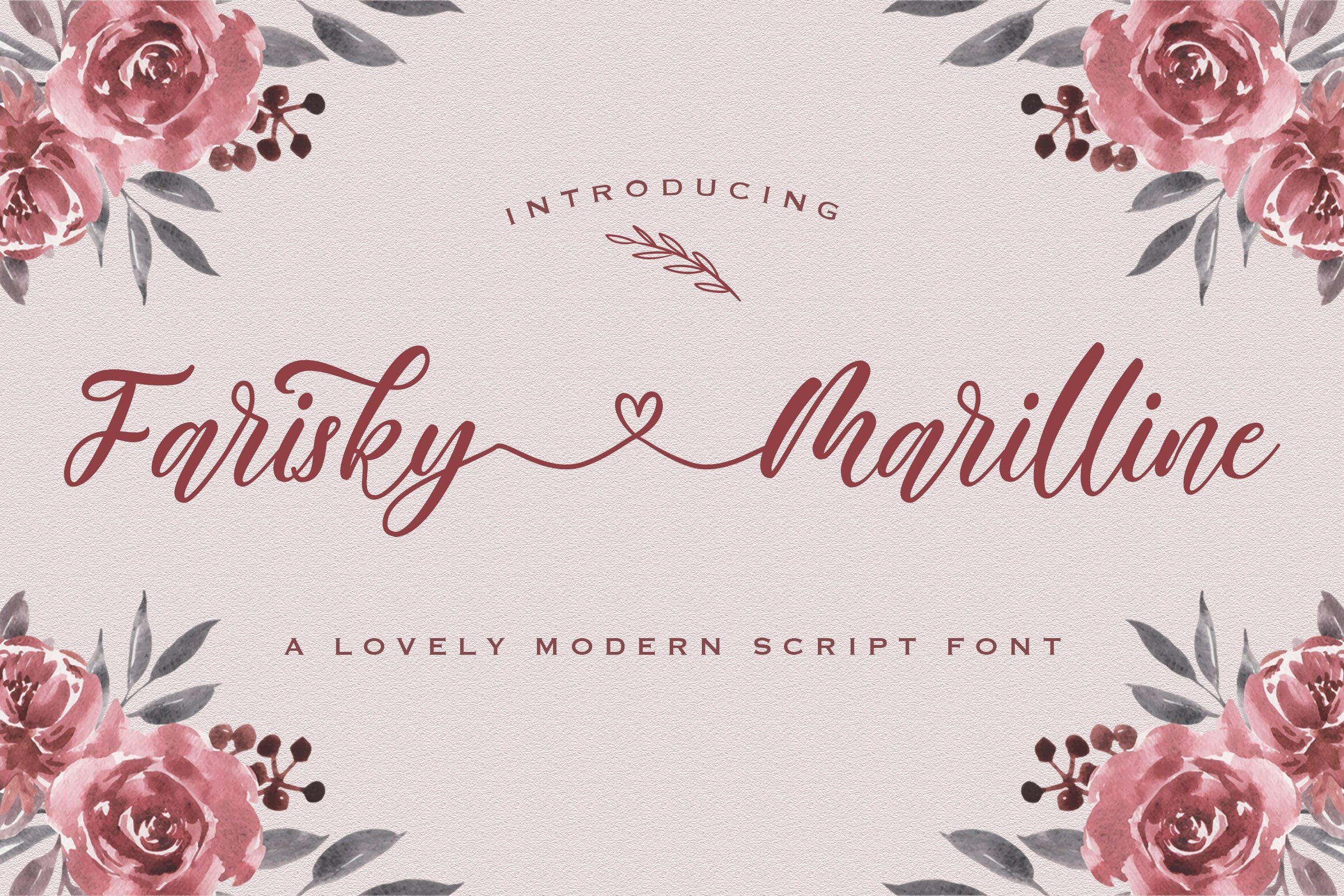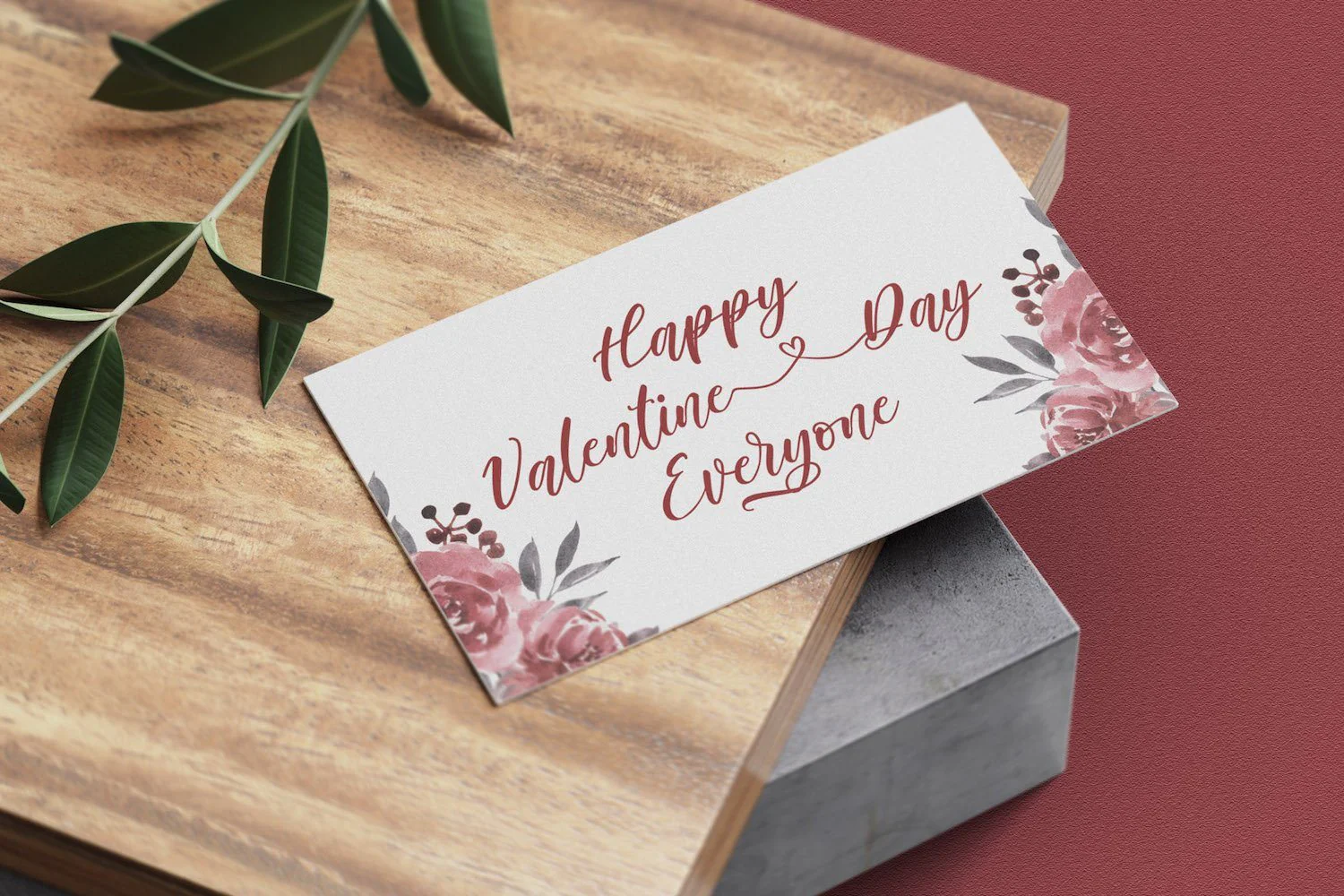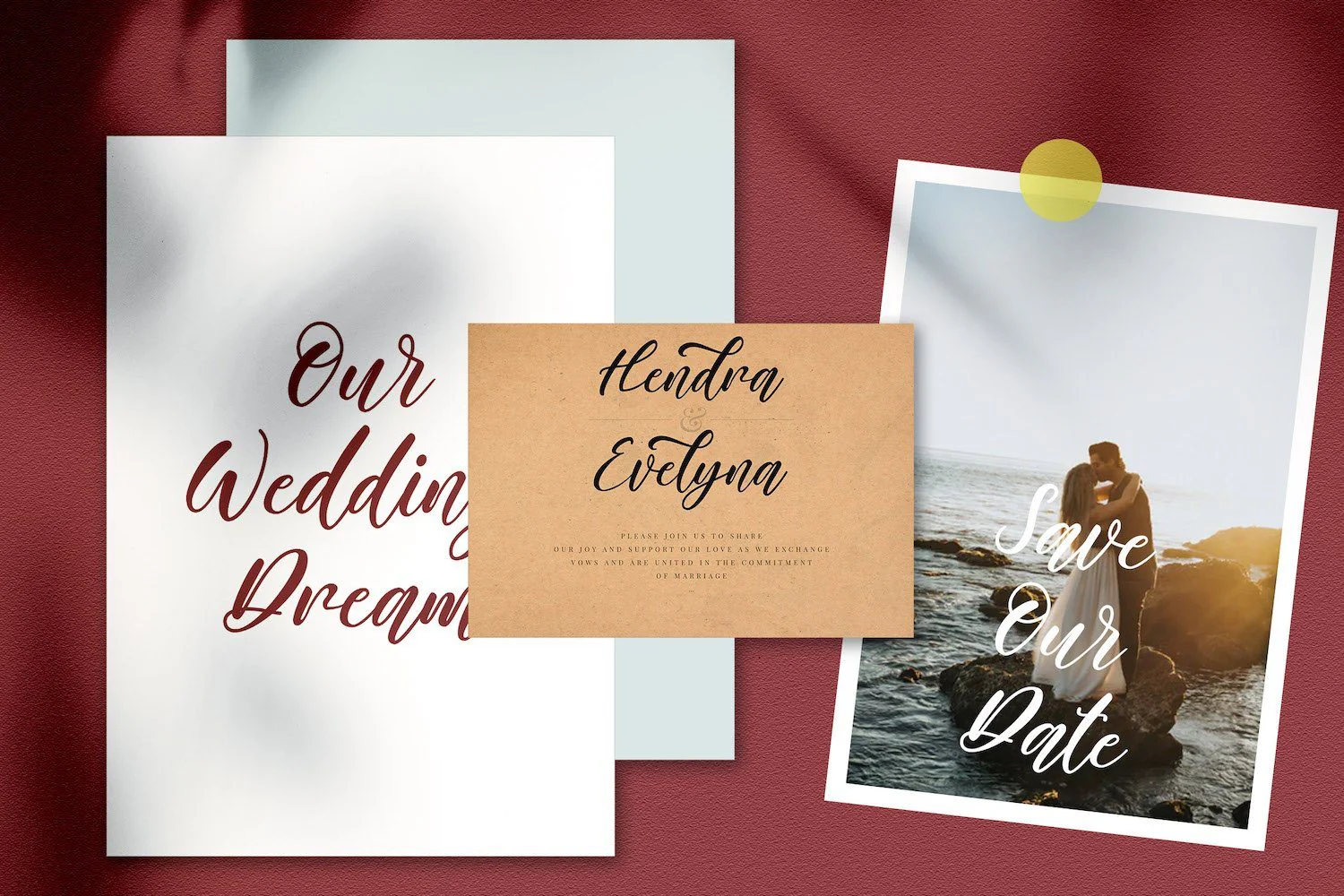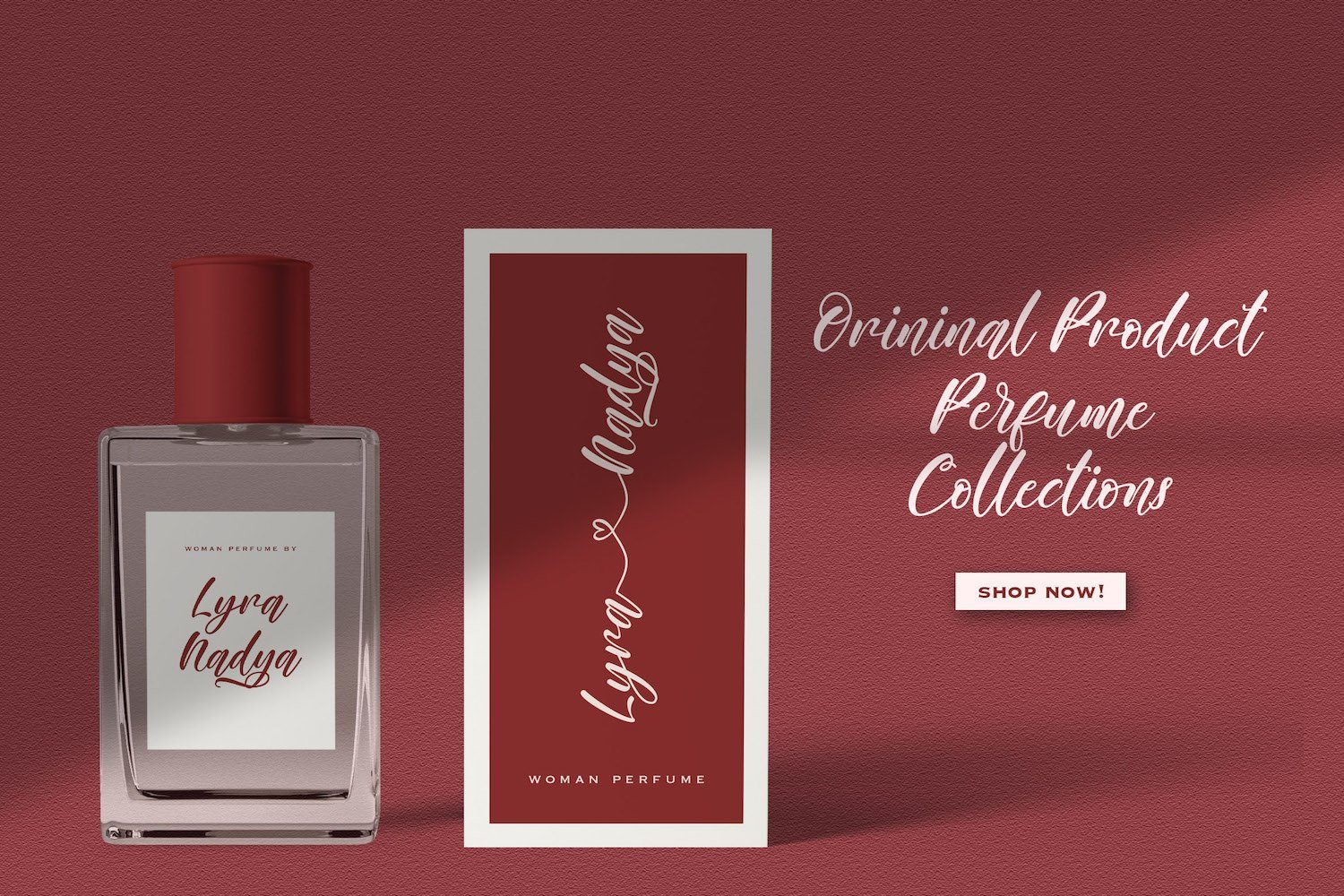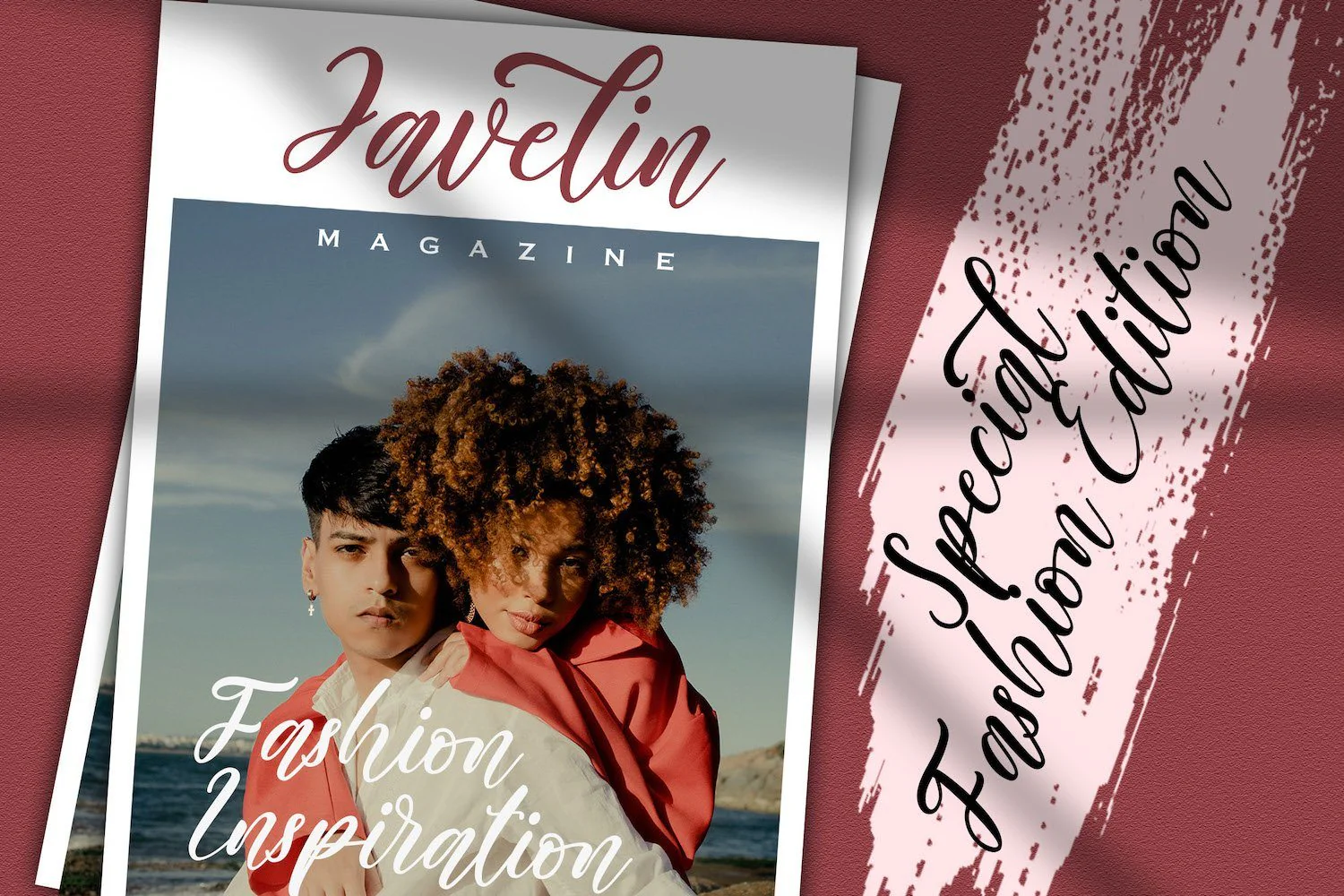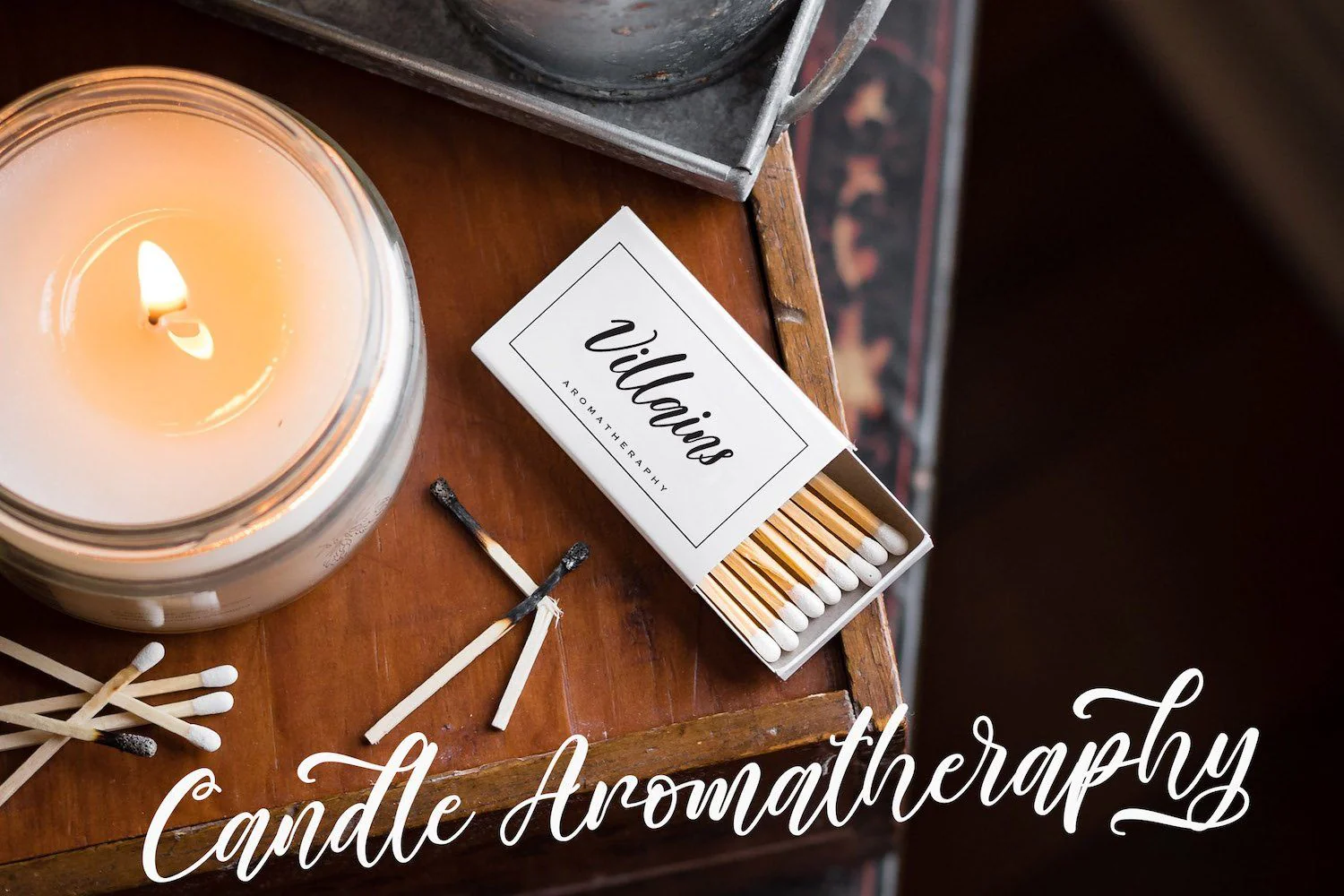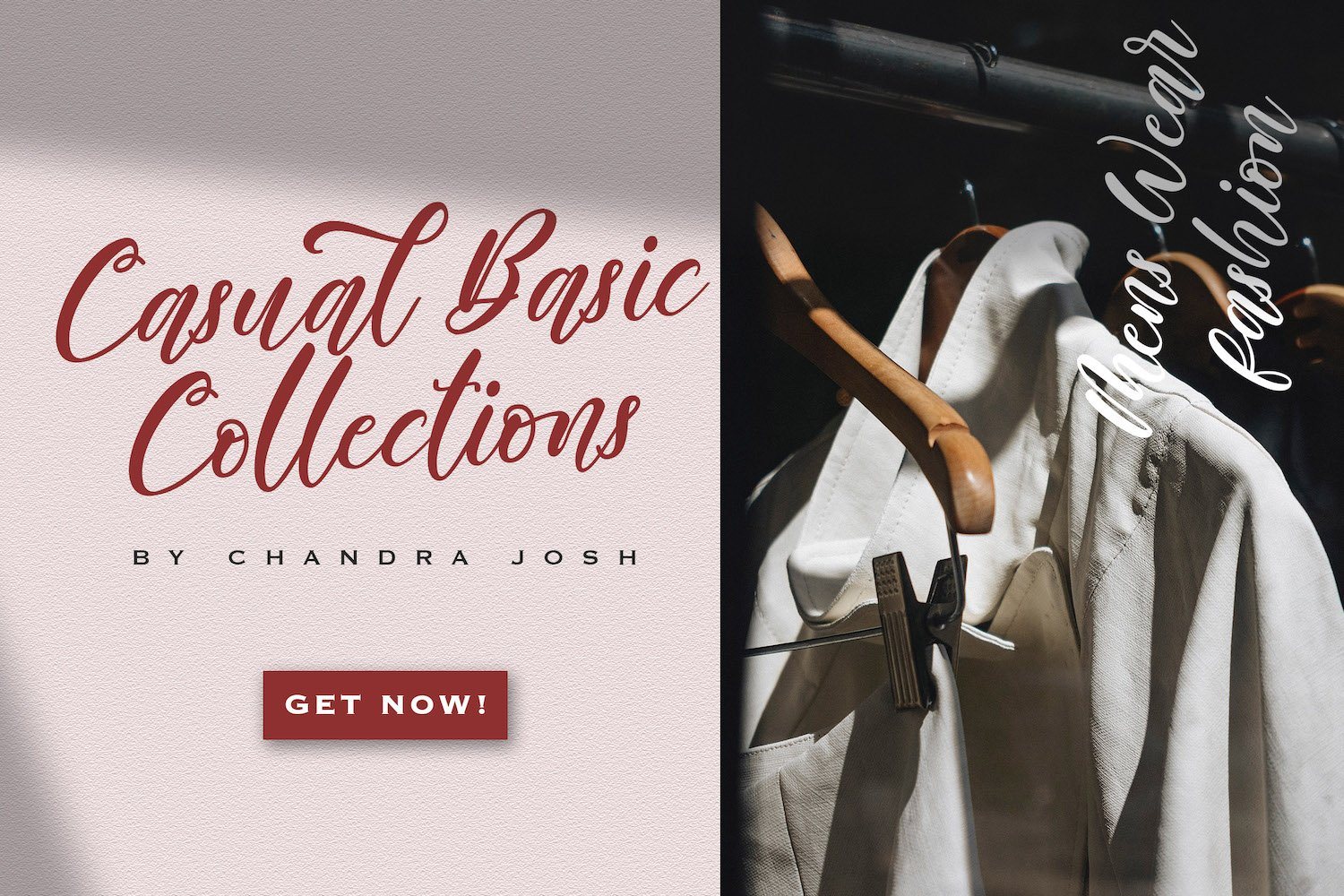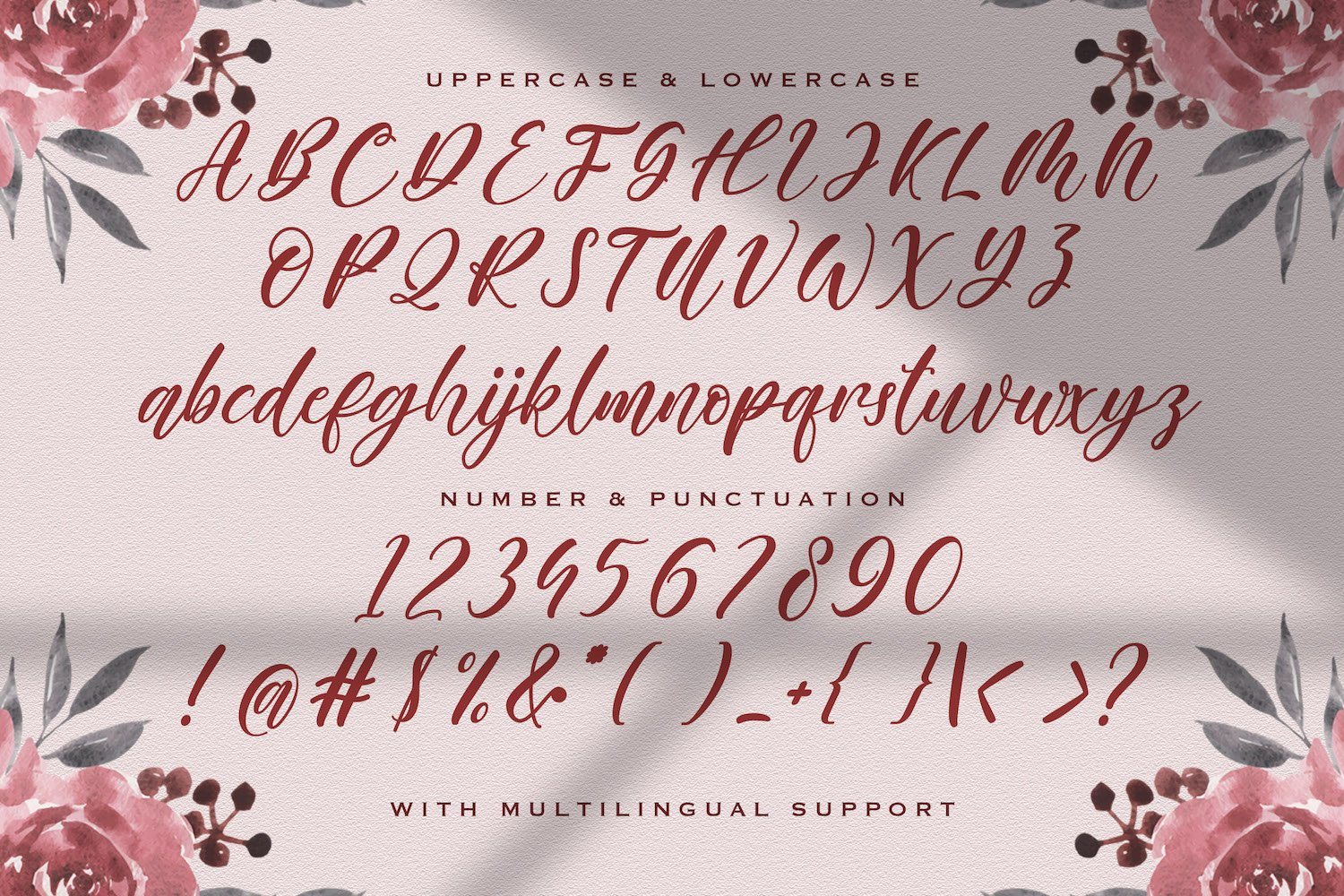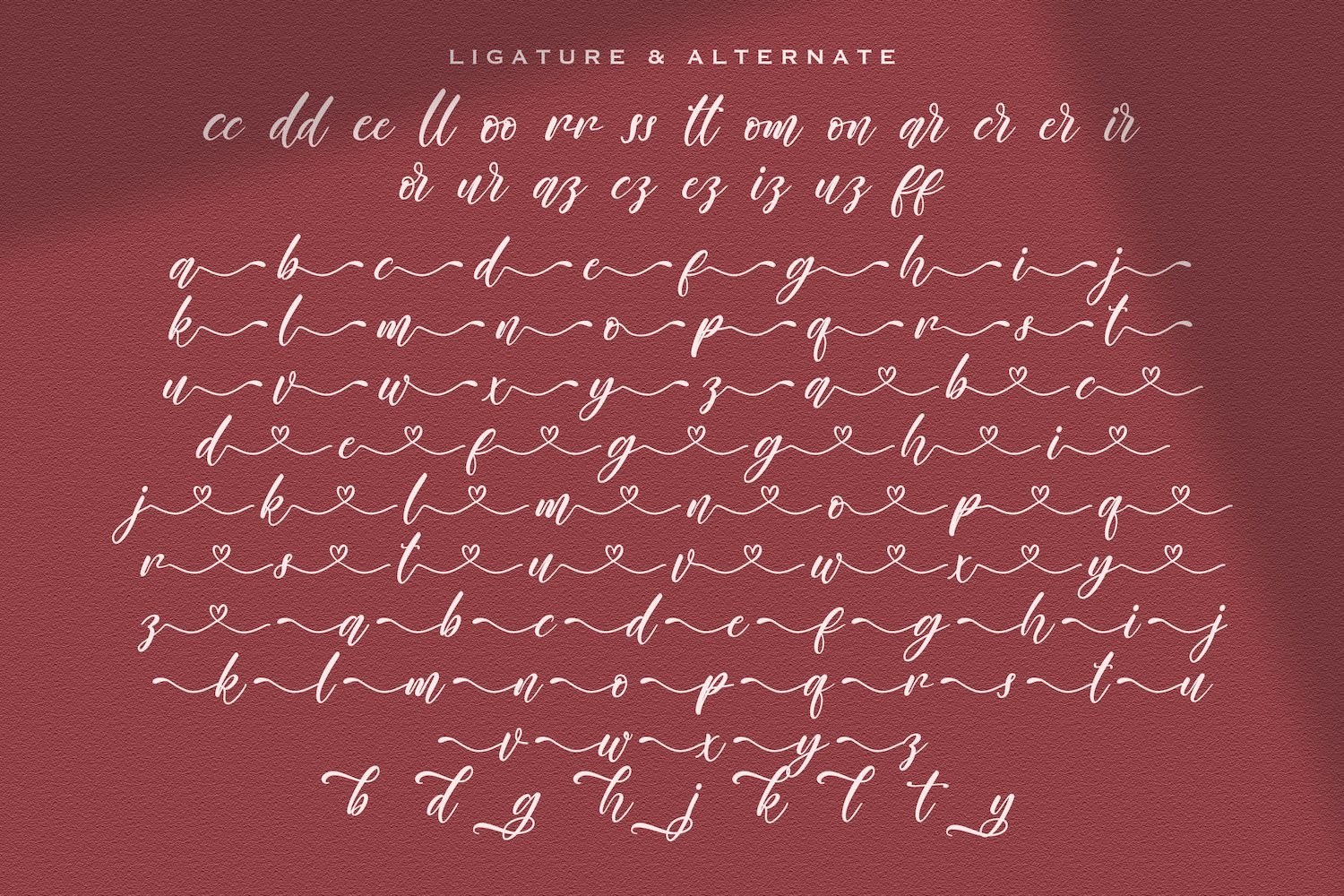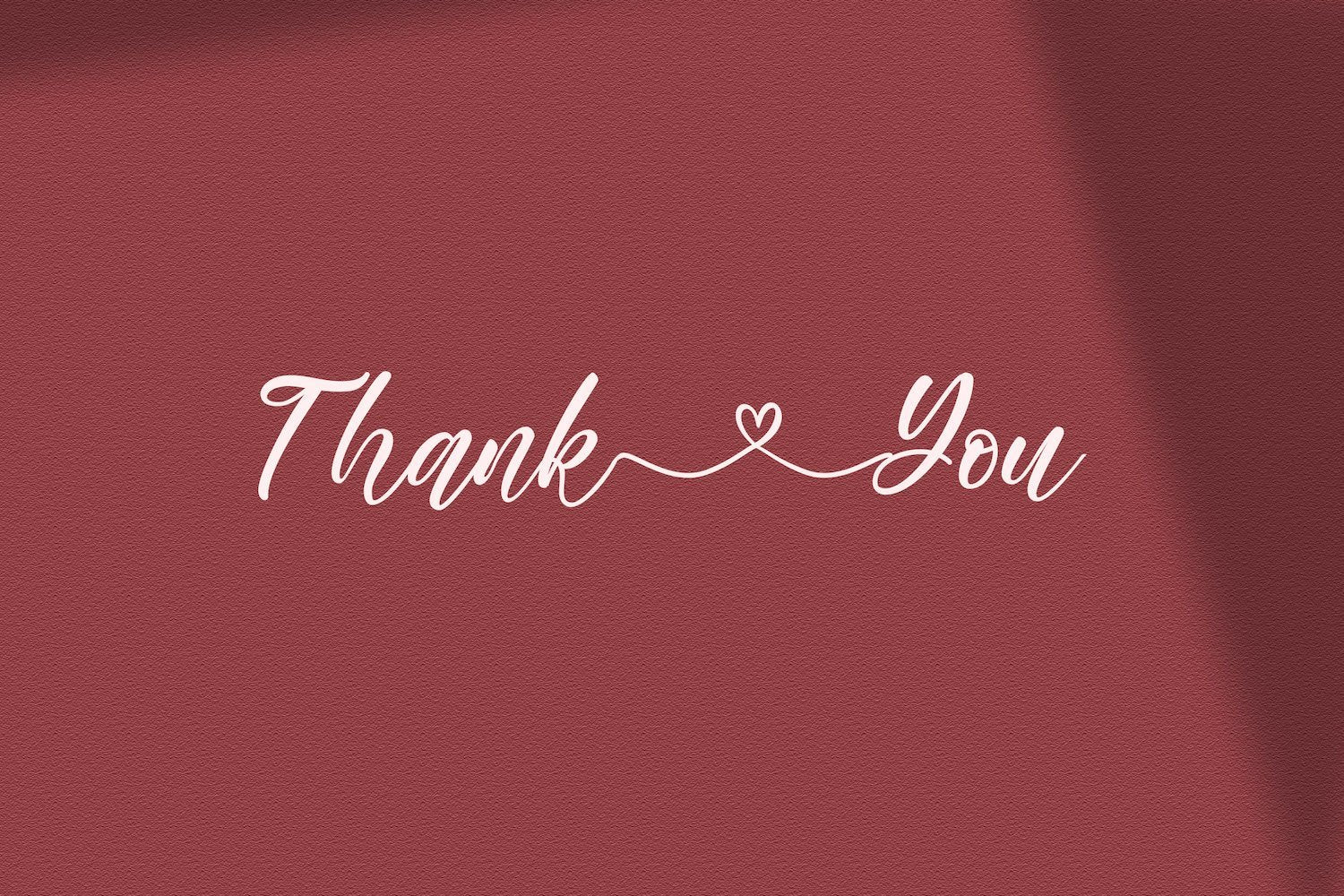
Farisky Marlline - Lovely Calligraphy Font
Introducing Farisky Marlline - Lovely Calligraphy Font
Farisky Marlline is an exquisite handwritten font, masterfully designed to become a true favorite. It maintains its classy calligraphic influences while feeling contemporary and fresh. Fall in love with it and bring your projects to the highest levels!